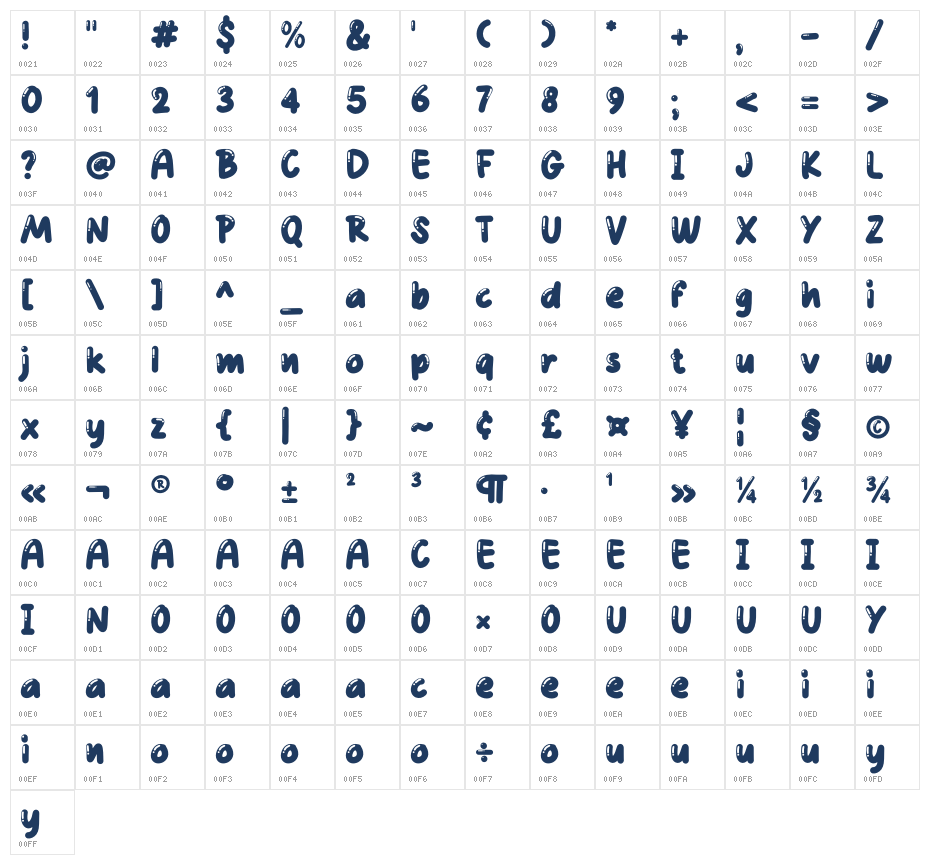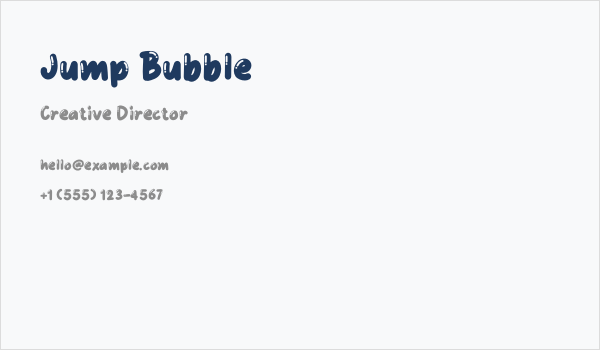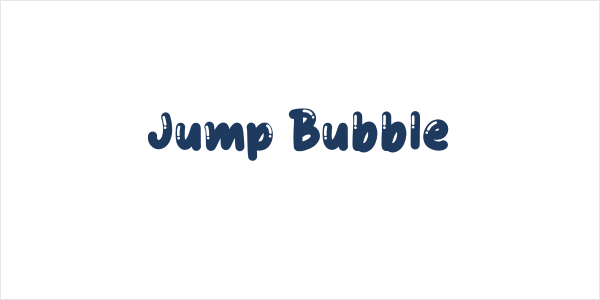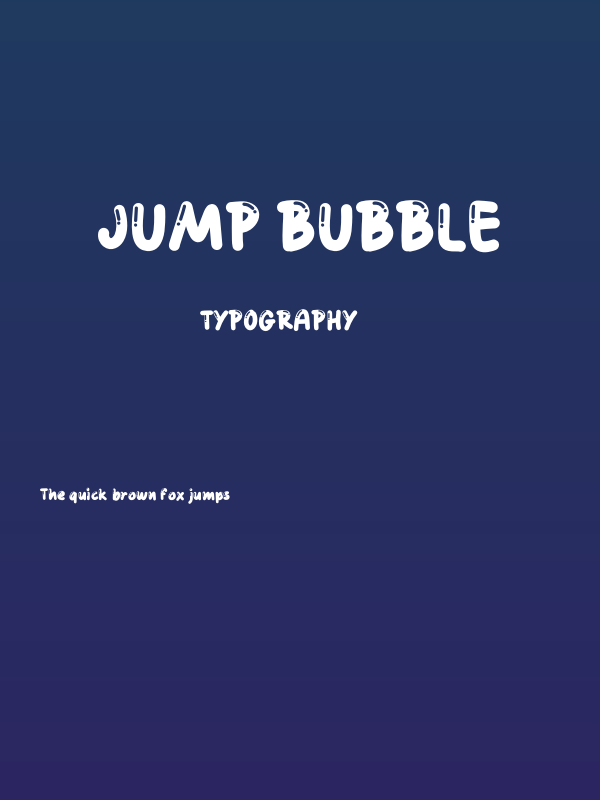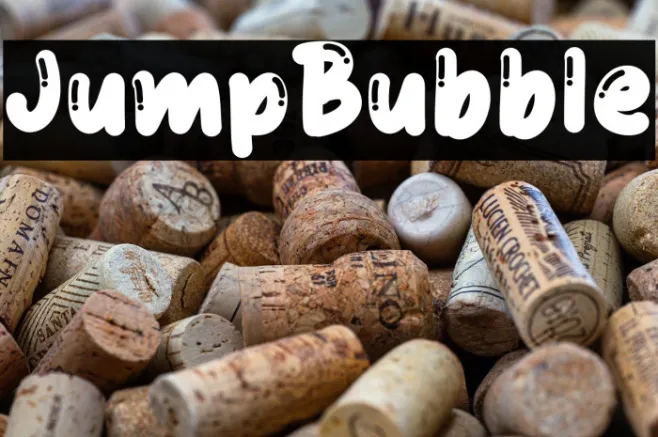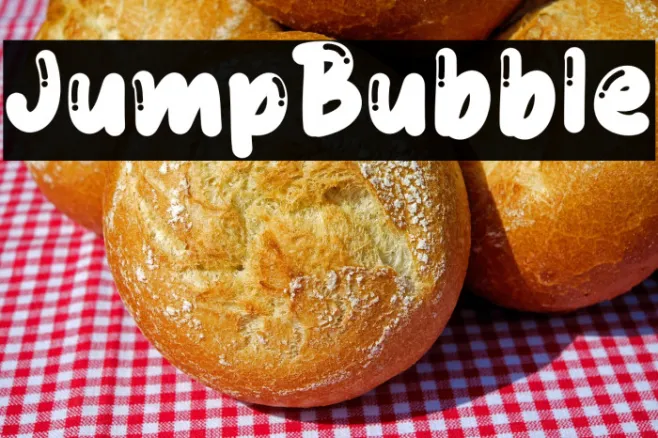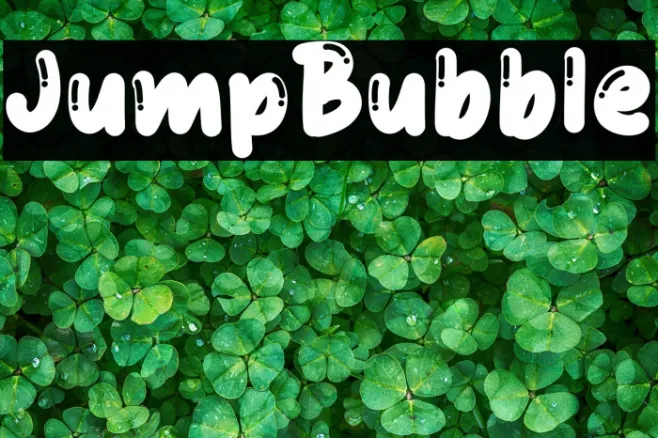
Jump Bubble Font
Jump Bubble Description
A playful, rounded, cartoon-style font with a bold appearance and decorative elements such as small dots and irregularities within the characters.
Hello Good Studio
| Overall Style | Playful, Cartoonish |
| Use Case | Headlines, Titles, Children's materials, Logos |